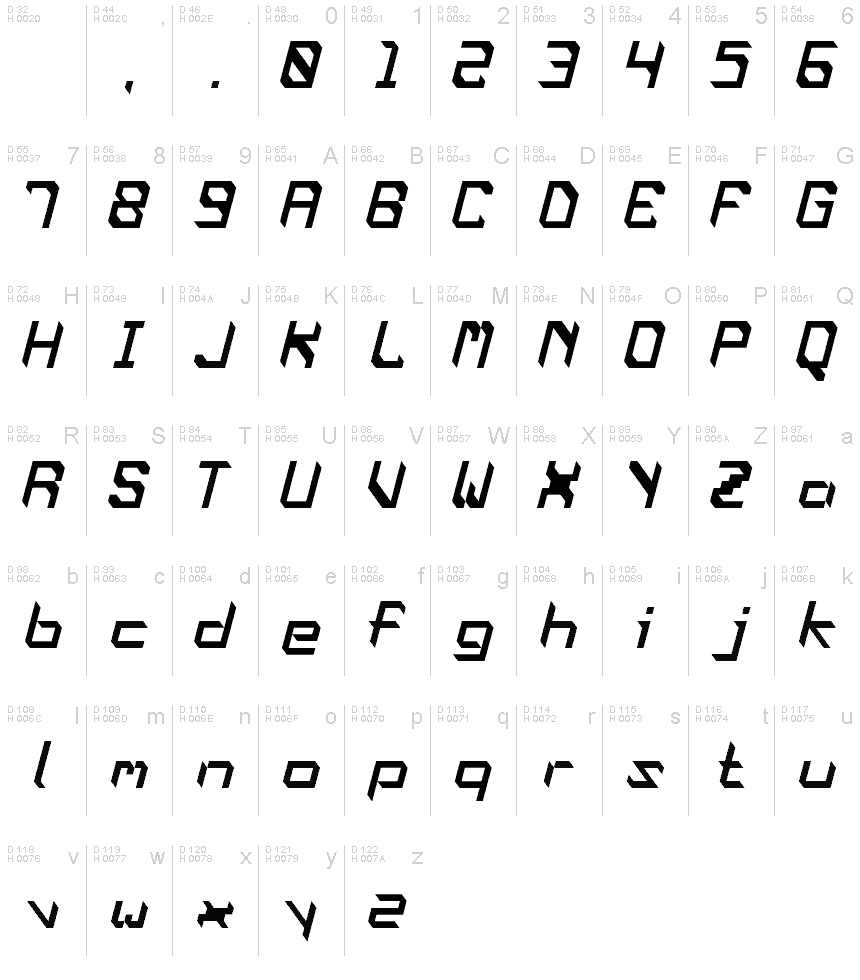
Oblaque Oblique
Oblaque is a captivating display font that exudes a bold, futuristic aesthetic. Designed by Suwardiansyah, this expanded techno-style typeface commands attention with its sharp, angular forms and sleek, minimalist appearance. The font's distinctive character shapes and extended width create a striking visual impact, making it well-suited for use in branding, packaging, and digital design projects that require a modern, cutting-edge look and feel.
Oblaque's unique style lends itself to a variety of applications, from bold headlines and impactful logos to eye-catching typography in multimedia and web design. Its versatility allows designers to craft visually compelling compositions that evoke a sense of technological sophistication and forward-thinking vision.